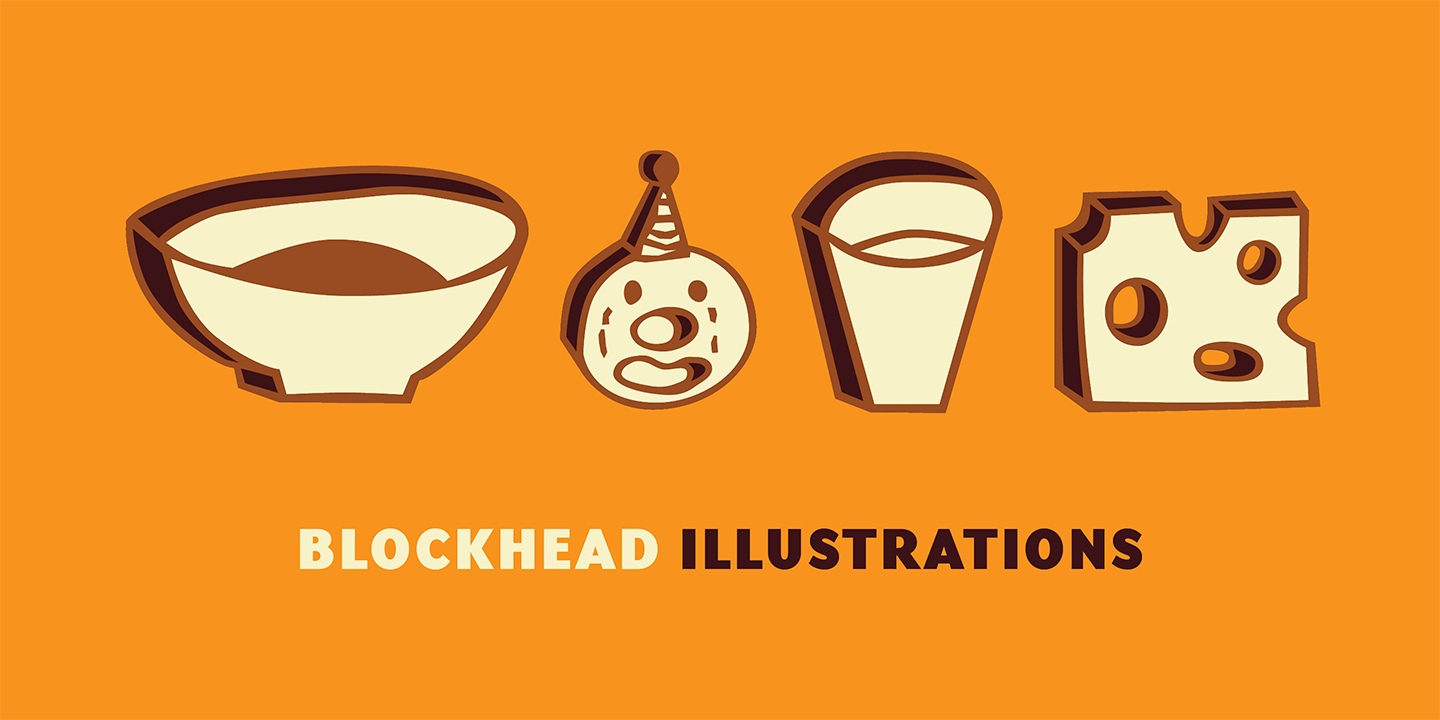
Blockhead Illust Font
The Blockhead Illust Font is a dynamic, fun, and unique typeface that combines a bold, blocky structure with a hand-drawn, illustrative feel. Its playful and slightly imperfect lines make it an excellent choice for a wide variety of creative projects. This font is perfect for children's book titles, creative posters, branding for quirky businesses, and eye-catching social media graphics. The Blockhead Illust Font's unique character makes it a favorite among designers looking to add a sense of personality, whimsy, and genuine artistry to their work.
What makes the Blockhead Illust Font so exciting is its raw, handcrafted energy. The intentional imperfections in each character give it a genuine, human touch that sets it apart from more traditional, geometric fonts. This isn't just a font; it's a piece of art that tells a story, making your designs feel rich with character and meaning. Its powerful presence ensures that your message is not just seen, but felt, making it an invaluable tool for designers who want to create bold and memorable visual experiences.
The Blockhead Illust font family is designed for maximum impact, providing a complete set of uppercase and lowercase letters, numbers, and punctuation. While it's primarily designed as a display font, its clean lines and clear structure maintain a surprising level of readability, even in complex layouts. This full-featured family gives you all the tools you need to create a cohesive and powerful design.